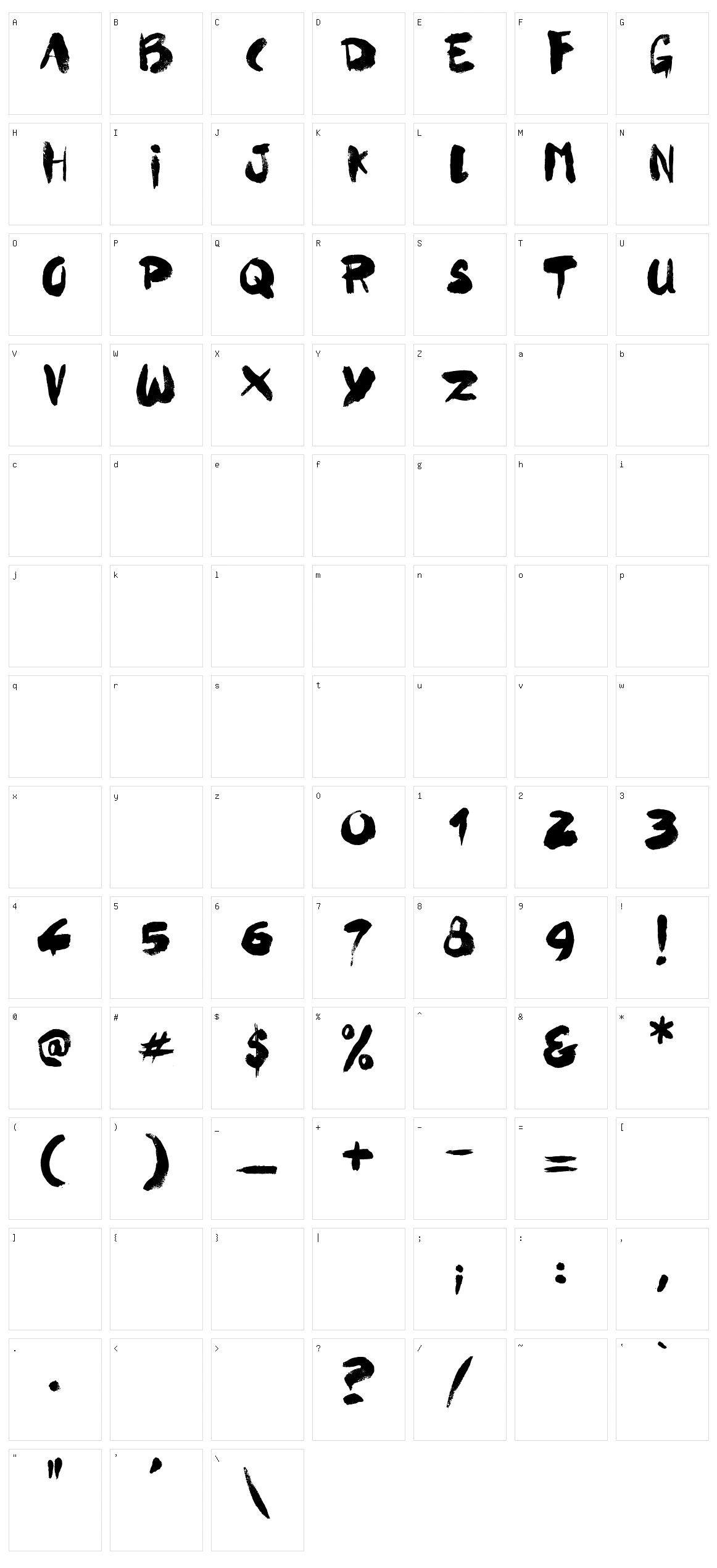
The free font Ghost Crazy is carefully designed by imagex, showcasing a thoughtful balance of creativity and usability and falls under the Script font style. When you download the ZIP file, it contains only 78.26 KB of font files, making it lightweight and quick to download. Please review the license details below to understand permitted usage and distribution rights. If license information is not available, we recommend using this font for personal projects only or contacting the author directly for commercial usage permissions.